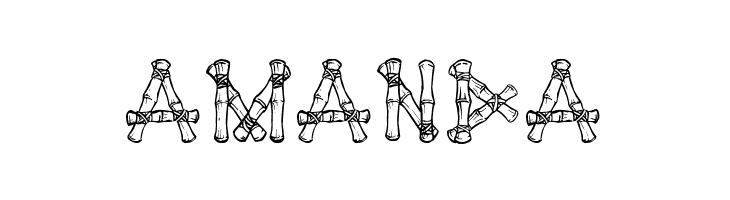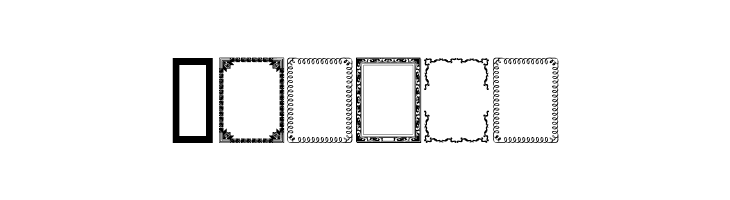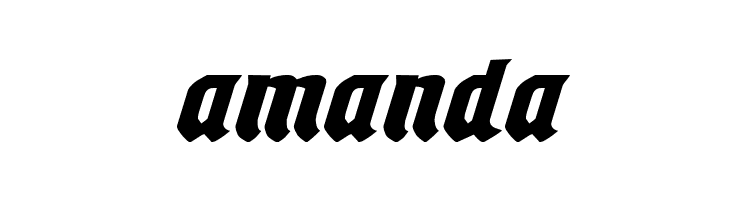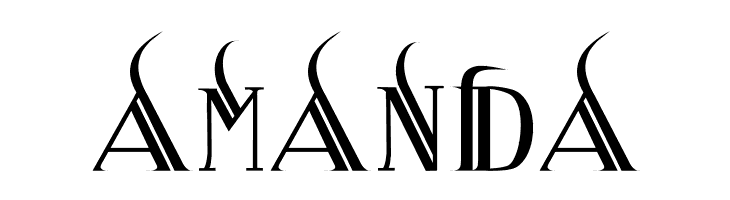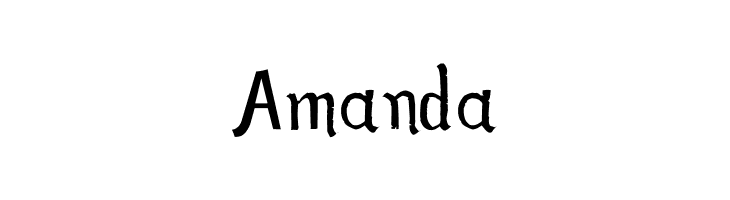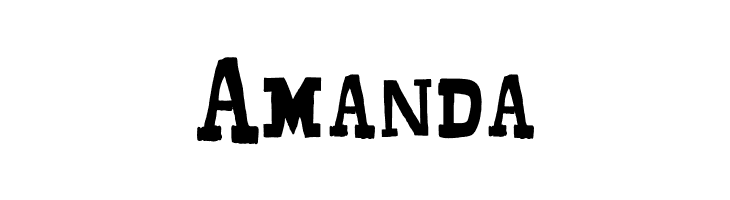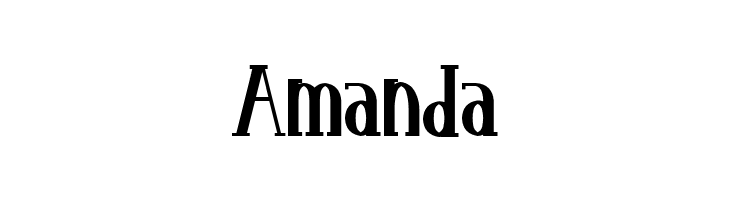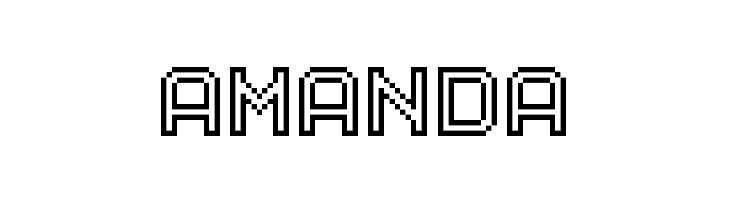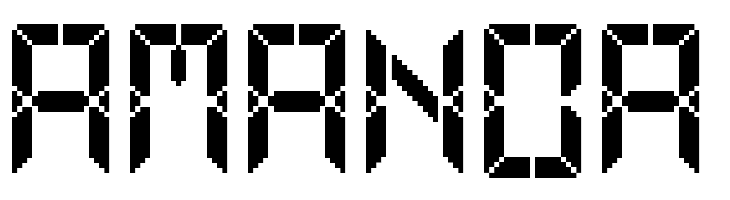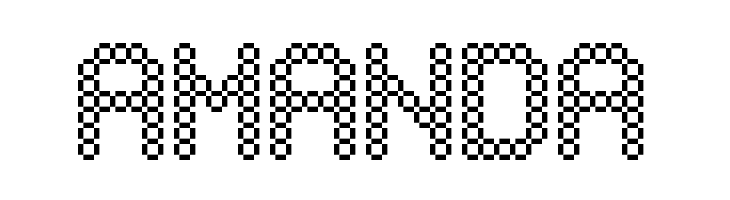
Intricate decorative elements inspired by Nouveau, Rococo, and Deco styles.
A decorative frame dingbat set with diverse border styles.
A playful, eclectic font with vintage-inspired graphics and text styles.
Decorative font featuring checker-like circular game pieces in filled and outlined styles.
A bold, italicized font with a modern twist on traditional blackletter styles.
A playful, eclectic font mimicking a ransom note with varied styles and bold design.
A decorative font with intricate serifs and high contrast, blending modern and vintage styles.
An ornate and decorative font with intricate uppercase and casual lowercase styles.
A decorative font with a blend of modern and vintage styles, featuring bold and whimsical characters.
A playful and eclectic font with varied character styles and artistic flair.
A decorative and eclectic font with a mix of bold and ornate styles.
Bold geometric arrow symbols in multiple directions and styles.
A versatile collection of directional arrows with various styles and orientations.
A diverse set of decorative arrows in multiple hand-drawn and graphic styles.
A high-contrast serif font with a blend of modern and vintage styles.
A pixelated, retro-style font with a blocky, geometric design.
A pixelated outline font with a retro digital aesthetic.
A pixelated, retro-style font with a digital, grid-like appearance.
A pixelated, retro-style font with bold outlines and a classic 8-bit aesthetic.
A pixelated, retro-style font with a blocky, 8-bit aesthetic.
A pixelated, digital font inspired by classic LCD displays, perfect for tech-themed projects.
A pixelated, retro-style font with a blocky, geometric design.
A playful, pixelated bubble font with a retro digital aesthetic.
A pixelated, retro-style font inspired by early digital graphics.
A versatile set of arrow designs with varied styles and directions.
A pixelated, retro-style font with a blocky, geometric design.
A pixelated, digital font with a retro LCD display style.